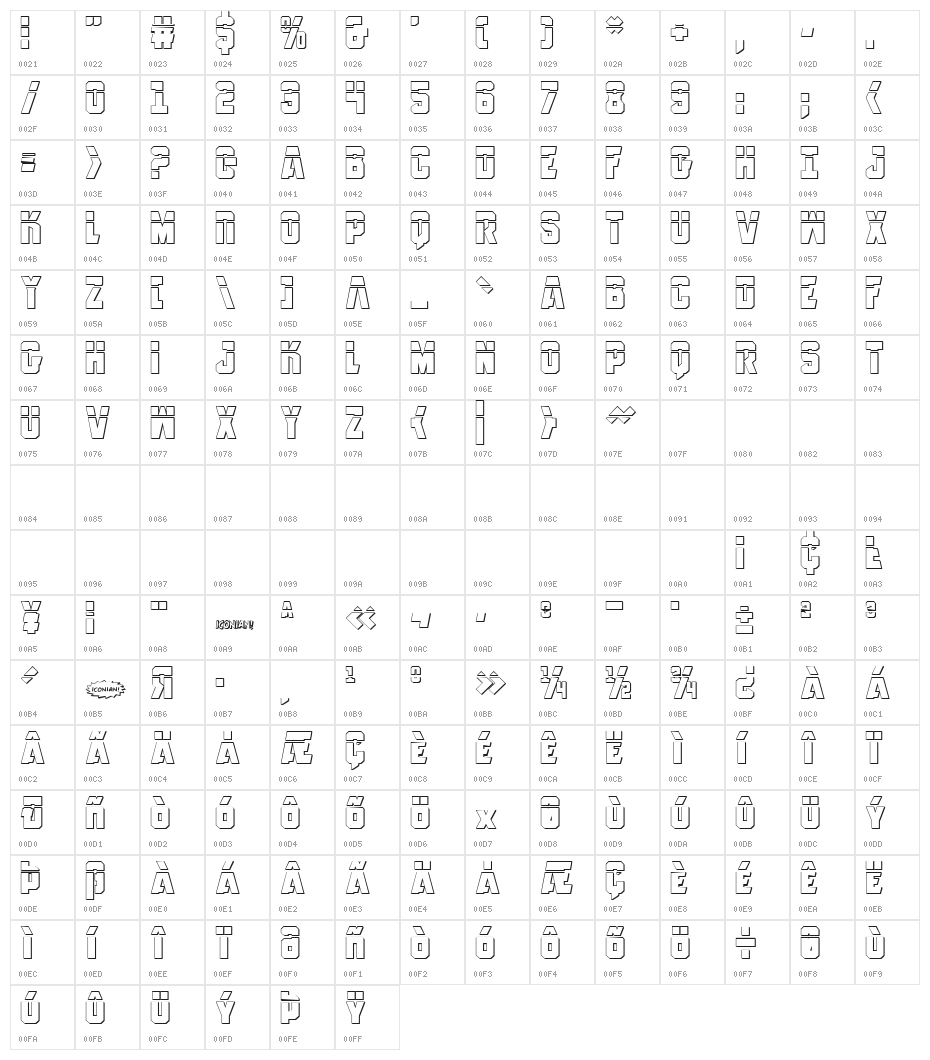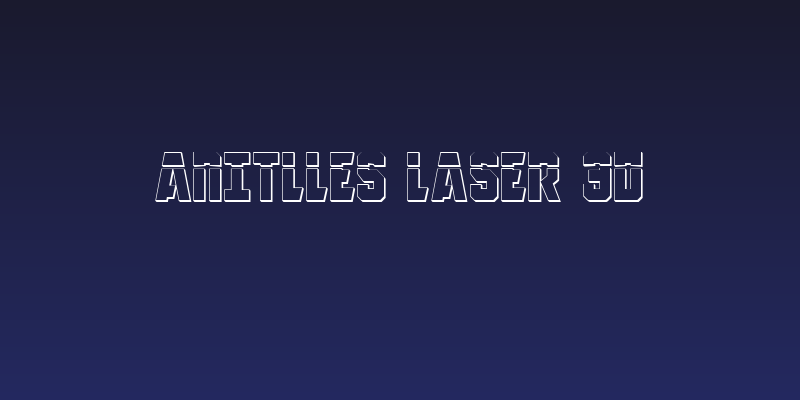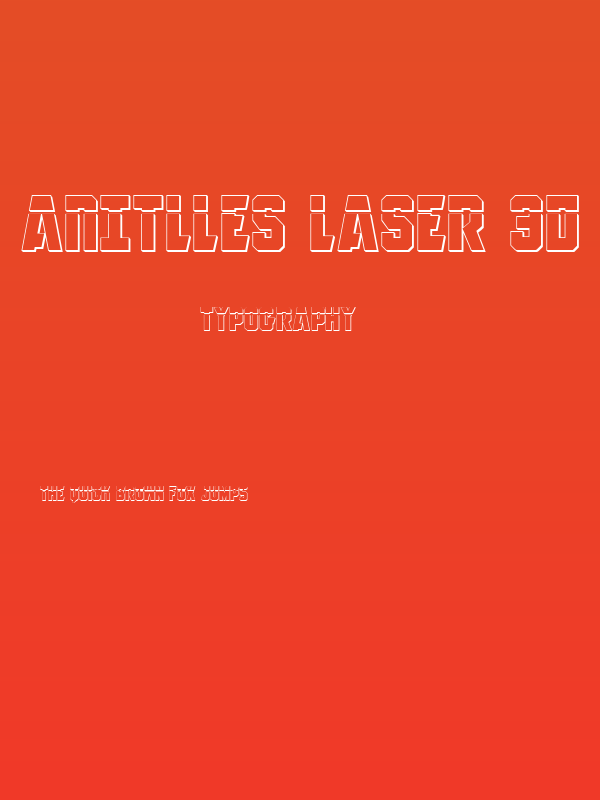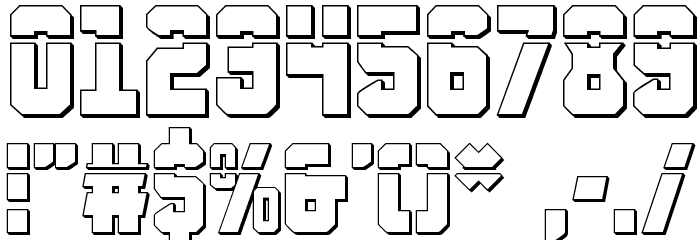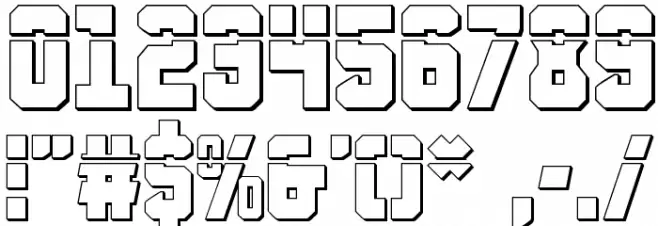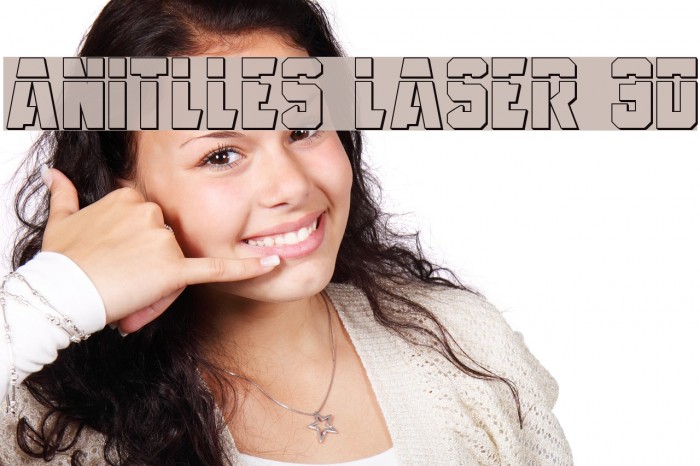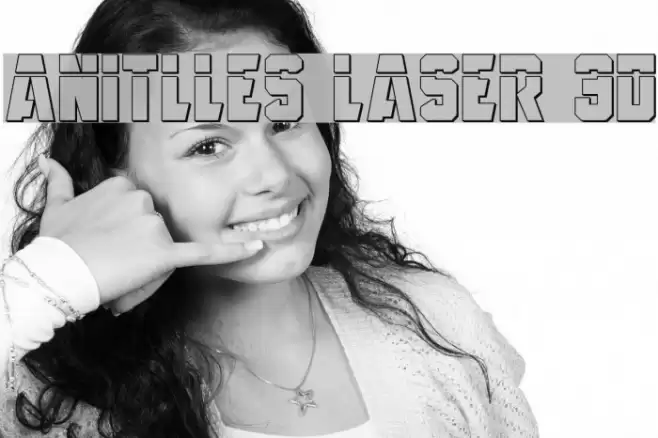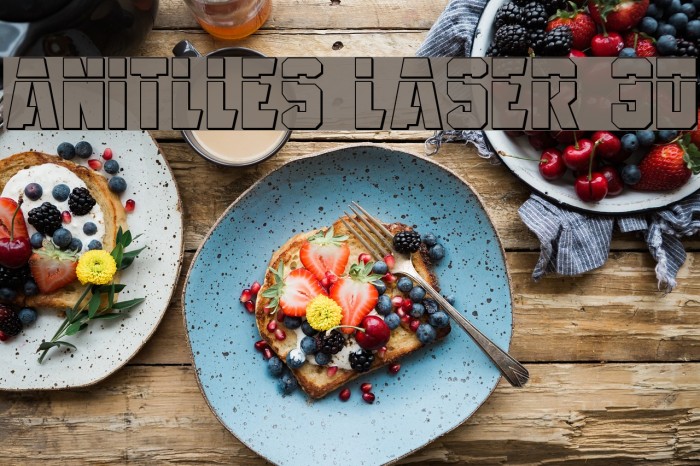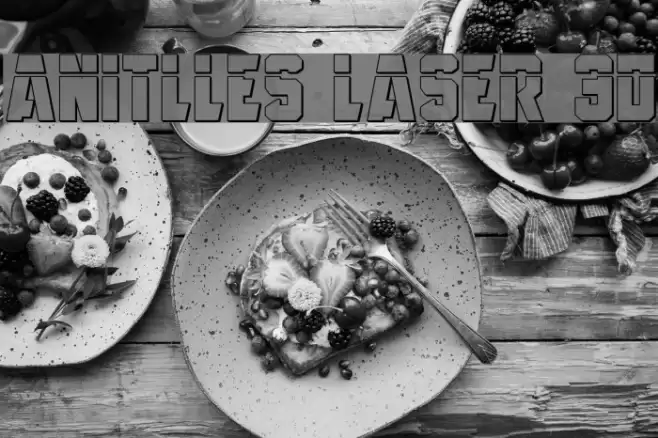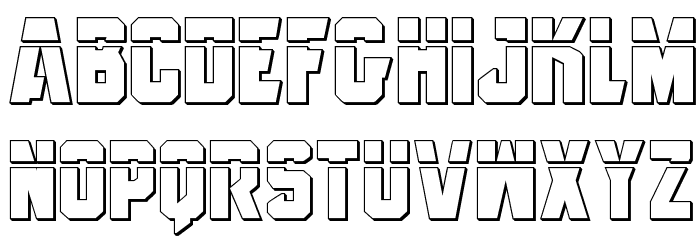
Anitlles Laser 3D Font
| おすすめプロジェクト | Ideal for sci-fi themed designs, video game titles, posters, and branding that requires a modern and bold statement. |